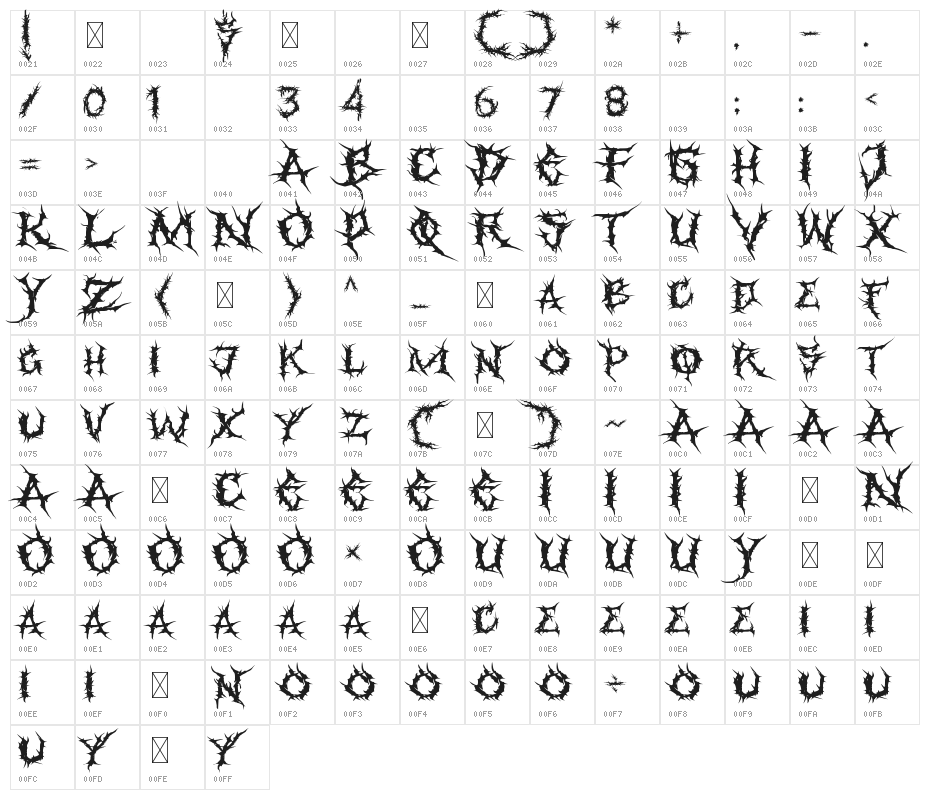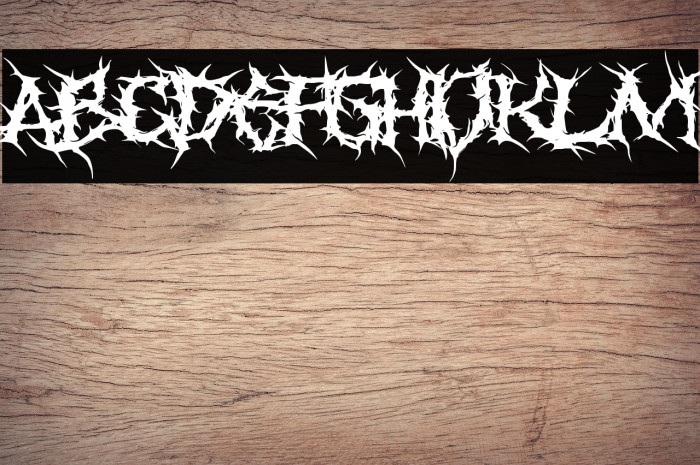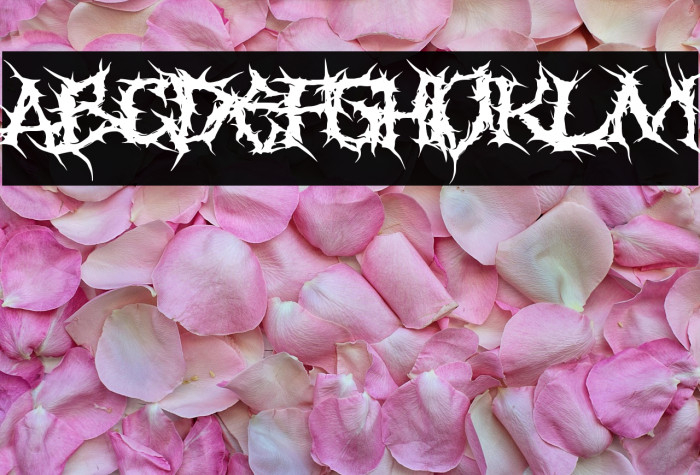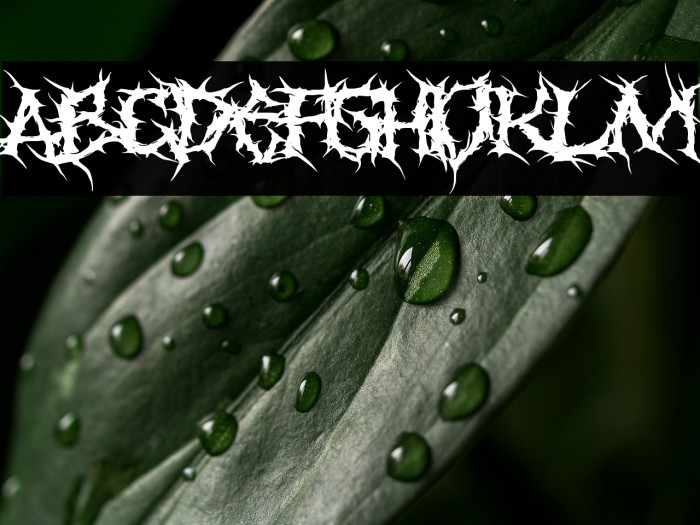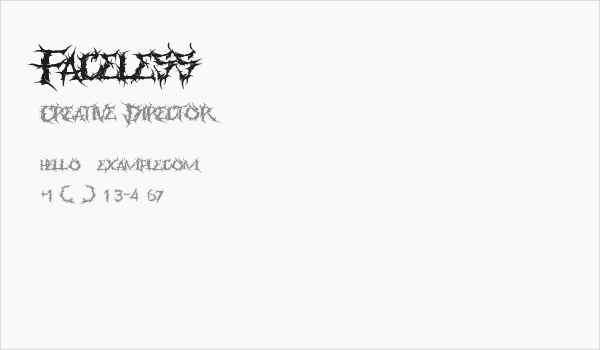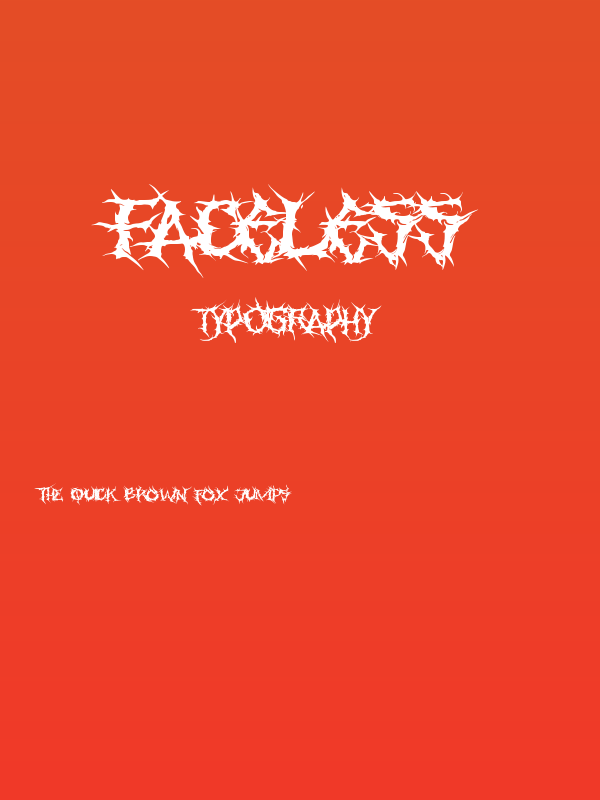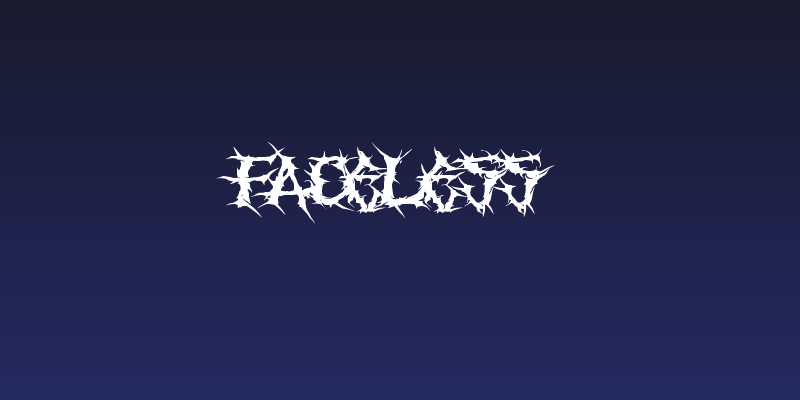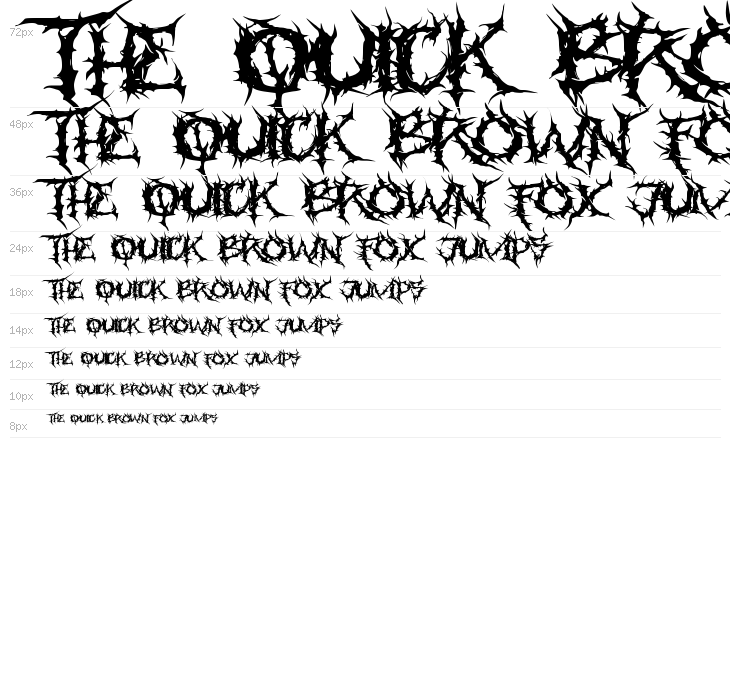
Faceless Font
Faceless Description
This font features a highly decorative and aggressive style, characterized by thorn-like extensions protruding from each character. The design is reminiscent of sharp, jagged edges, giving it a menacing and intense appearance. The uppercase and lowercase letters maintain a consistent theme, with each character appearing as if it is crafted from intertwining branches or barbed wire. The numbers and special characters follow the same thorny motif, ensuring a cohesive look across all elements. This font is not intended for readability in body text but rather for impactful visual statements.
| Proposed Projects | Ideal for horror-themed posters, album covers, or any project requiring a bold, edgy aesthetic. |